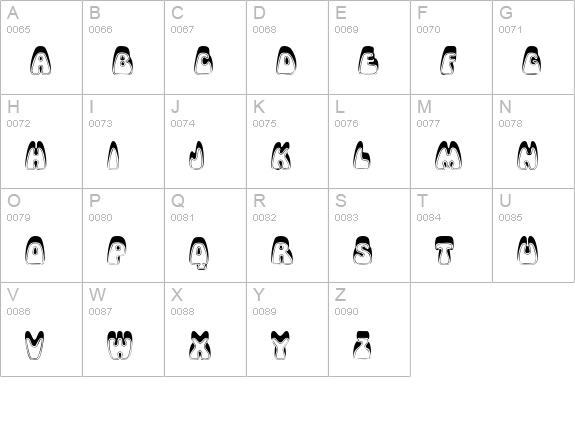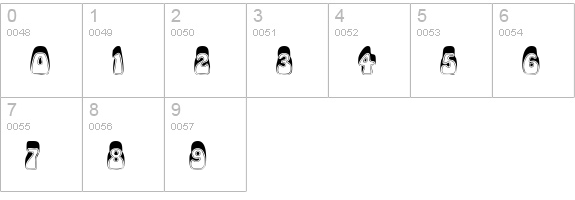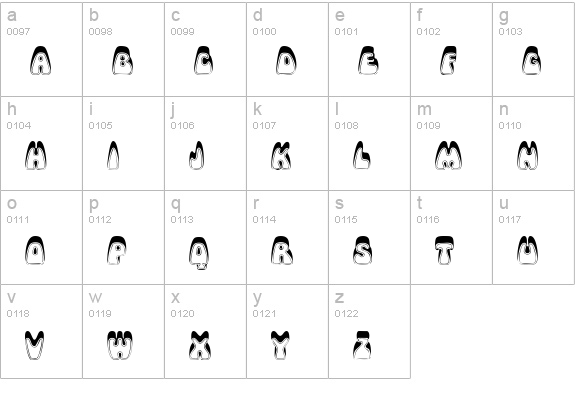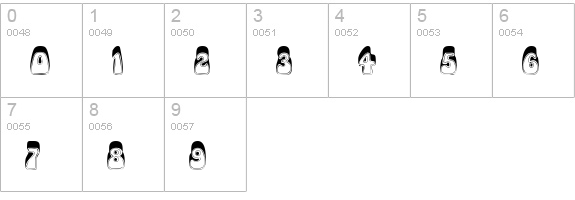
LoppDisplay font is a stylish and modern typeface designed to elevate your design projects to the next level. With its sleek lines and sophisticated appearance, LoppDisplay is perfect for use in branding, advertising, packaging, and more. This versatile font exudes elegance and professionalism, making it a great choice for a wide range of applications. The best part? LoppDisplay is available for free download at FontsMarket.com. This means you can access this high-quality font without any cost, making it an excellent resource for both personal and commercial projects. Don't miss out on the opportunity to enhance your designs with the sleek and contemporary look of LoppDisplay font. Download it today and watch your creations come to life!